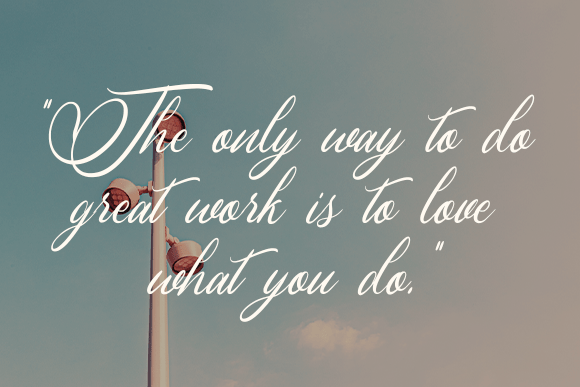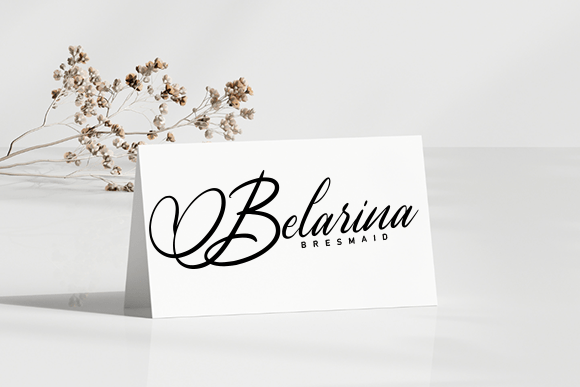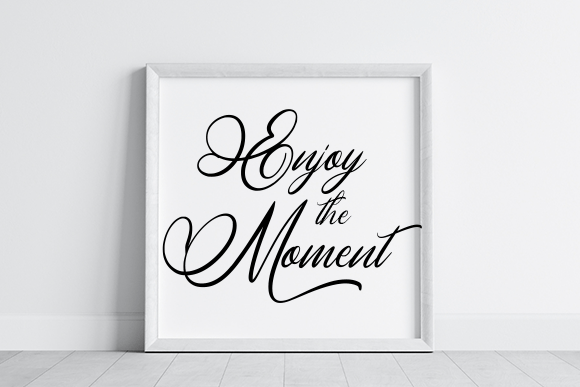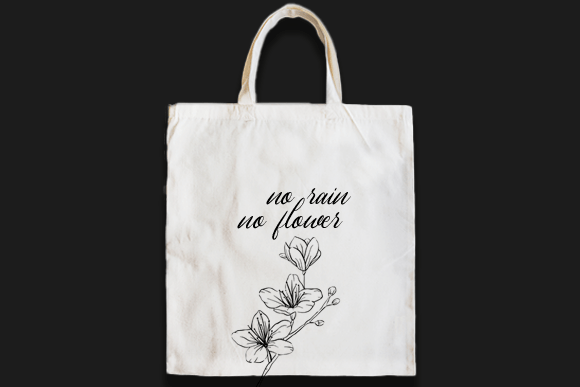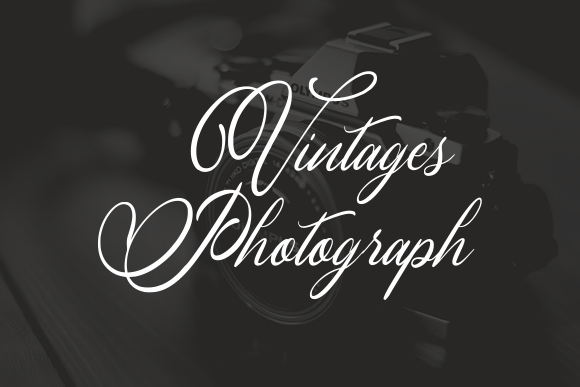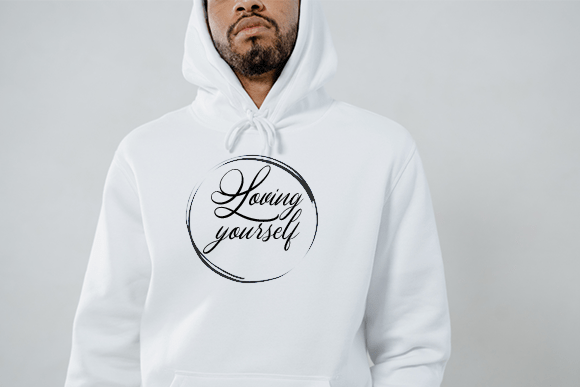
Introduction to Mourena Font
Remember that moment when you stumble upon the perfect design element, and your entire creative project comes together in an instant? It’s like hitting the jackpot, and your imagination runs wild with possibilities. For designers, this feeling is a constant pursuit, and that’s where the Mourena Font comes in – a game-changing addition to your design arsenal.
As a free download, Mourena Font has quickly become a go-to design resource for those seeking high-quality, modern typography. Its unique blend of elegance and sophistication makes it an ideal choice for a wide range of creative projects, from branding ventures to social media posts and advertisements.
What sets Mourena apart is its ability to add a touch of sophistication to any design, thanks to its transparent background and versatile design options. Whether you’re crafting a fashion-forward poster or enhancing project designs with a unique flair, Mourena Font is the perfect companion to take your designs to the next level.
Key Features of Mourena Font
- Unique, hand-drawn style with intricate details and textures
- Perfect for designers seeking a distinctive, creative font for their projects
Honest Review: Mourena Font
I recently came across the Mourena Font, and I must say, it’s a great addition to any design resource library. As a designer, I’m always on the lookout for high-quality fonts that can elevate a creative project to the next level.
What works well: ✨ The Mourena Font has a unique, elegant design that’s perfect for titles and headings. The font is highly legible, even at smaller sizes, making it ideal for body text as well. The transparent background option is also a bonus, allowing for seamless integration into any design.
Some limitations: ⚠️ While the Mourena Font is a great choice for most projects, it may not be the best option for bold, sans-serif designs. Additionally, the font family is relatively small, which may limit its versatility in certain situations.
Overall, I’m impressed with the Mourena Font, and I’d definitely recommend it to designers looking for a high-quality, creative solution. With a free download option available, it’s definitely worth checking out.
- Unique and elegant design
- Highly legible even at smaller sizes
Mourena Font
The Mourena Font is a versatile and high-quality design resource perfect for any creative project. It offers a transparent background and is available for free download, making it an ideal choice for designers and non-designers alike.
Tips for Getting the Most Out of Mourena Font
To get the most out of the Mourena Font, try combining it with other design elements to create a unique and eye-catching visual identity. Experiment with different font sizes, colors, and styles to find the perfect balance for your creative project.
The Mourena Font is perfect for a variety of design projects, including:
- Branding materials